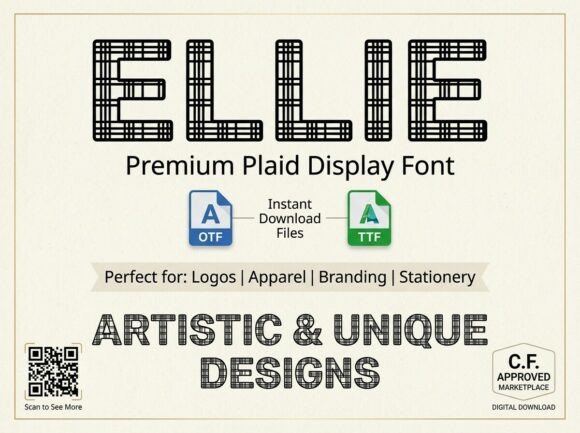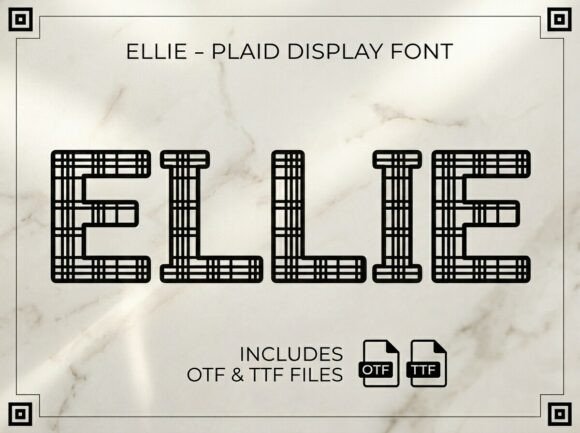
Introducing Ellie Font: The Ultimate Decorative Display Font for Creative Projects
In the world of typography, fonts play a crucial role in conveying messages, expressing creativity, and capturing the audience’s attention. For designers, crafters, and creators looking to elevate their projects with a touch of uniqueness and sophistication, Ellie Font is an exceptional choice. This stunning decorative display font is specifically designed to be the center of attention, boasting unique artistic elements and a strong visual personality that sets it apart from more conventional fonts.
What Makes Ellie Font Stand Out?
Ellie Font is not just another addition to the vast library of typefaces available today. Its intricate details and creative letterforms make it a masterpiece for high-impact designs where typography needs to be a focal point. Whether you’re working on a modern poster, crafting a unique brand identity, or creating eye-catching social media content, Ellie Font adds an instant “wow” factor to any project. Its versatility allows it to be used for bold headlines, artistic logos, and creative packaging, all while maintaining a professional and polished finish.
Ideal Applications for Ellie Font
The versatility of Ellie Font makes it suitable for a wide range of applications. Here are some of the ideal uses for this stunning font:
Poster Design
For poster designs, the goal is often to grab attention and communicate a message quickly and effectively. Ellie Font, with its bold and artistic presence, is perfect for creating headlines that people can’t look away from. Its decorative elements ensure that your posters stand out, making it an excellent choice for advertising, events, or informational posters.
Branding & Logos
Building a unique identity for creative businesses is crucial in today’s competitive market. Ellie Font can help you achieve this with its distinctive and artistic style. It’s ideal for logos, brand names, and taglines that need to convey creativity, innovation, and a bit of flair. Using Ellie Font for your branding can instantly elevate your business’s visual identity.
Apparel & Merch
For designers looking to create standout apparel and merchandise, Ellie Font offers endless possibilities. It’s perfect for T-shirts, hoodies, tote bag designs, and more. The font’s unique style ensures that your designs are not only visually appealing but also highly marketable, making your products stand out in a crowded marketplace.
Social Media
In the digital age, social media content needs to be engaging and eye-catching to cut through the noise. Ellie Font is an excellent tool for creating quotes, announcements, and promotional content that stands out in the feed. Its decorative and attention-grabbing style ensures that your posts get noticed and shared.
Packaging
For product packaging, Ellie Font can add a premium feel to your products. Its artistic and sophisticated style makes it perfect for labels, product names, and packaging descriptions. Using Ellie Font for packaging can help elevate your product’s perceived value and make it more attractive to potential customers.
Why Choose Ellie Font?
Choosing Ellie Font for your projects comes with several benefits:
- Unique Artistic Elements: Its distinctive style ensures your projects stand out.
- Versatility: Suitable for a wide range of applications, from posters and logos to social media and packaging.
- Professional Finish: Despite its decorative nature, Ellie Font maintains a polished and professional look.
- Attention-Grabbing: Perfect for projects where you want the typography to do the talking.
Ellie Font is a powerful tool for any creator looking to add a touch of elegance and uniqueness to their projects. Its decorative display capabilities, combined with its versatility and professional finish, make it an excellent choice for a wide range of applications. Whether you’re a designer, crafter, or business owner, Ellie Font can help you achieve your creative goals and make your projects stand out. So, why settle for ordinary when you can make a statement with Ellie Font?